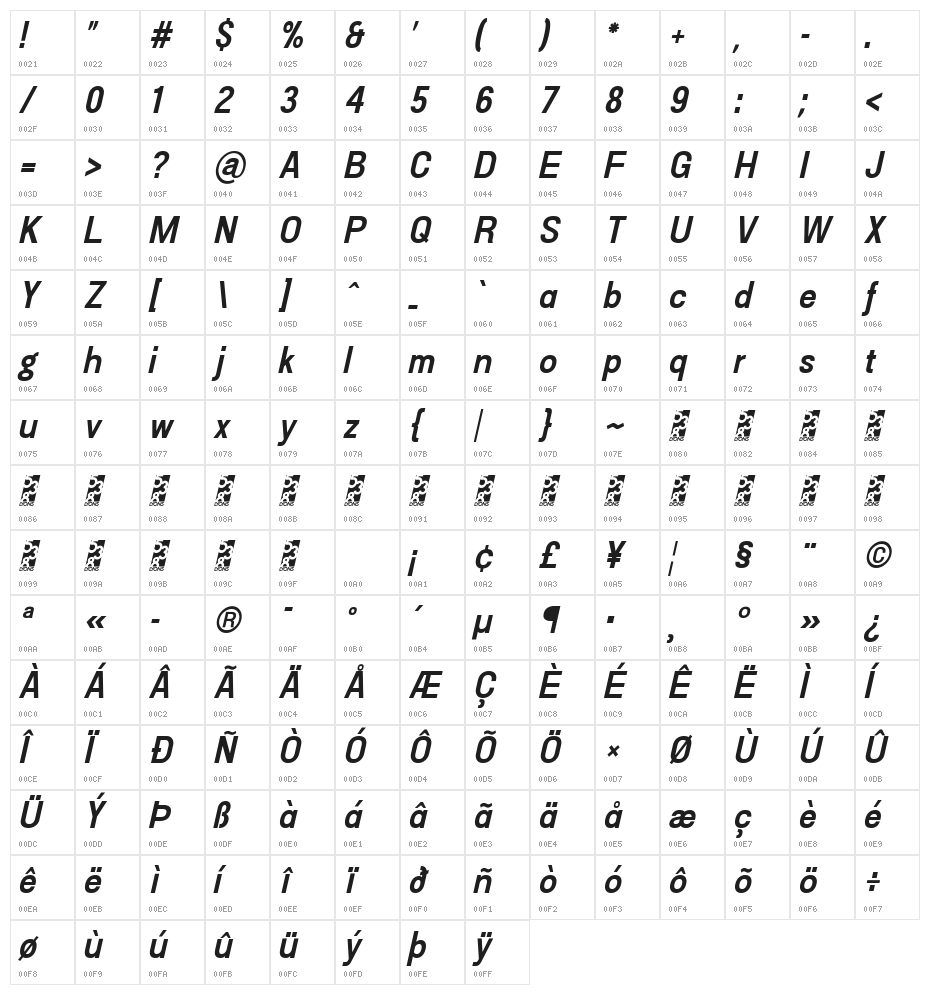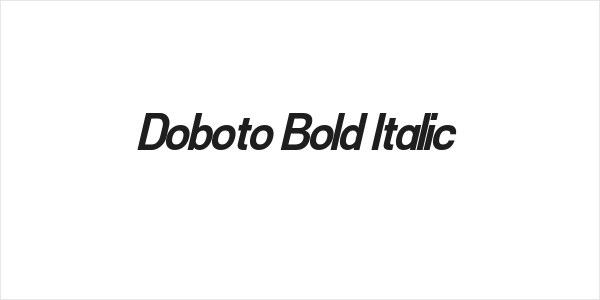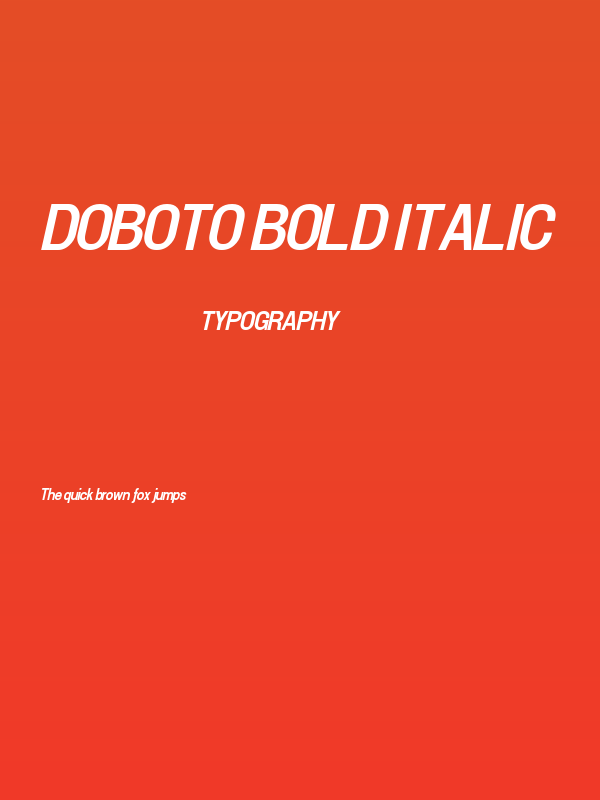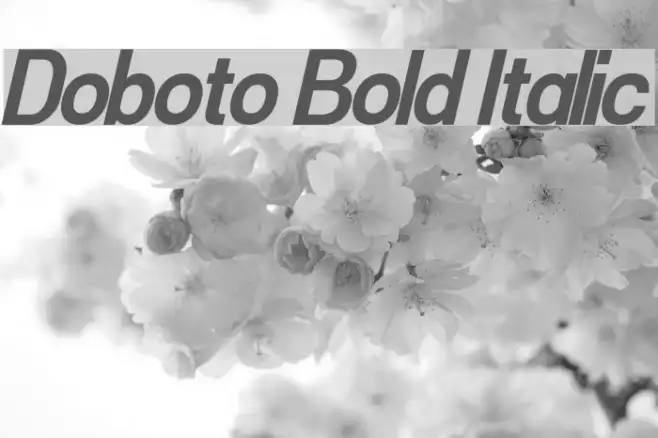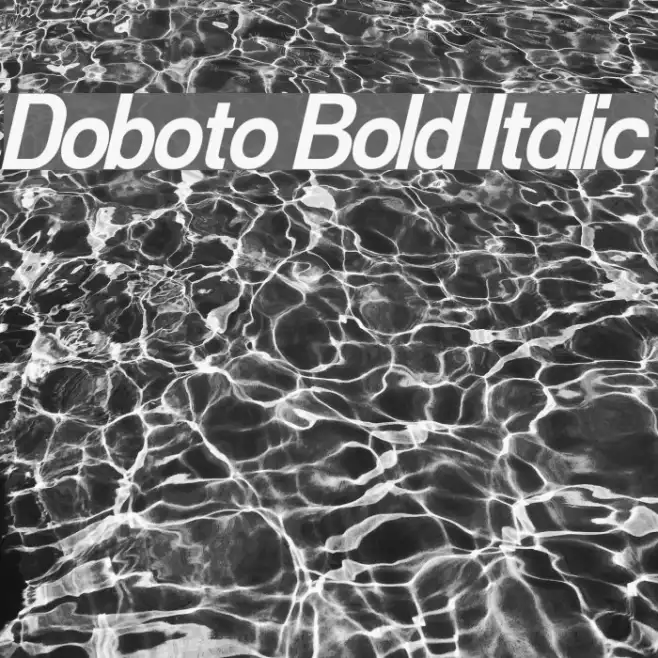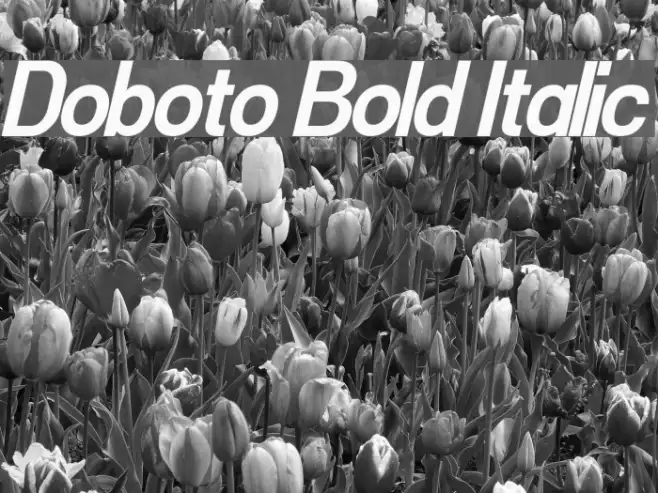
Doboto Bold Italic Font
Doboto Bold Italic Description
This font exhibits a bold and italicized style, characterized by its strong, slanted letterforms that convey a sense of dynamism and modernity. The uppercase and lowercase letters maintain a consistent weight, providing a uniform appearance across the alphabet. The numerals and special characters are designed to match the boldness and slant of the letters, ensuring a cohesive look. The strokes are thick, contributing to the font's bold appearance, while the italic slant adds a touch of elegance and movement. This combination of boldness and italics makes it suitable for impactful and attention-grabbing designs.
| Use Case | Headlines, Logos, Advertising |
| Proposed Projects | Ideal for branding, advertising, headlines, and any project requiring a bold, modern aesthetic. |